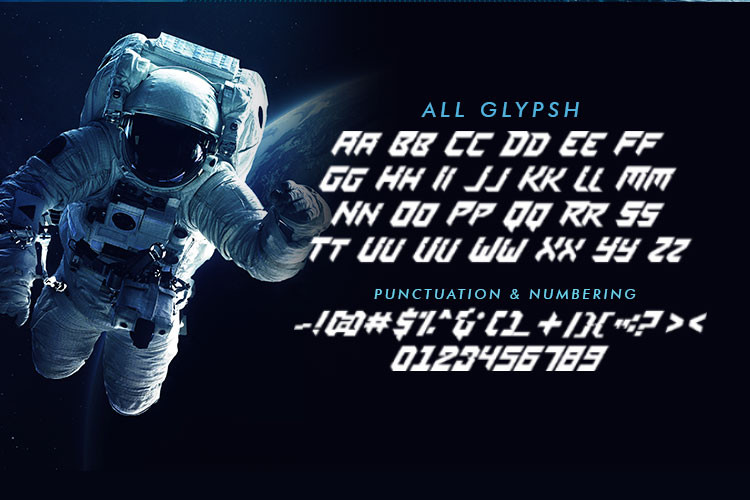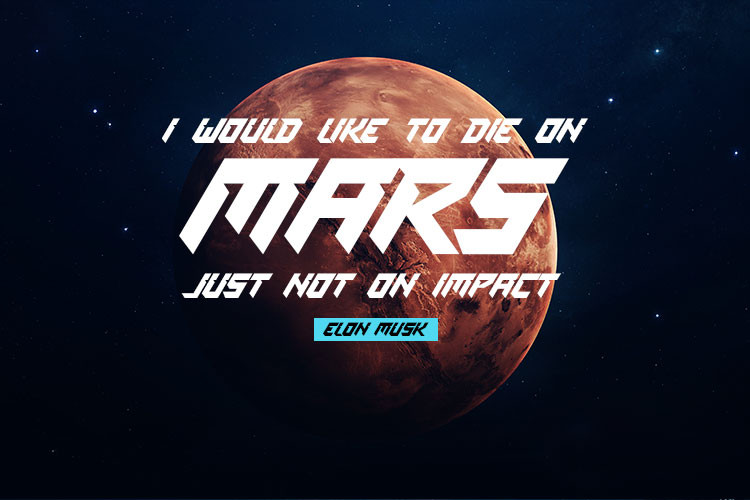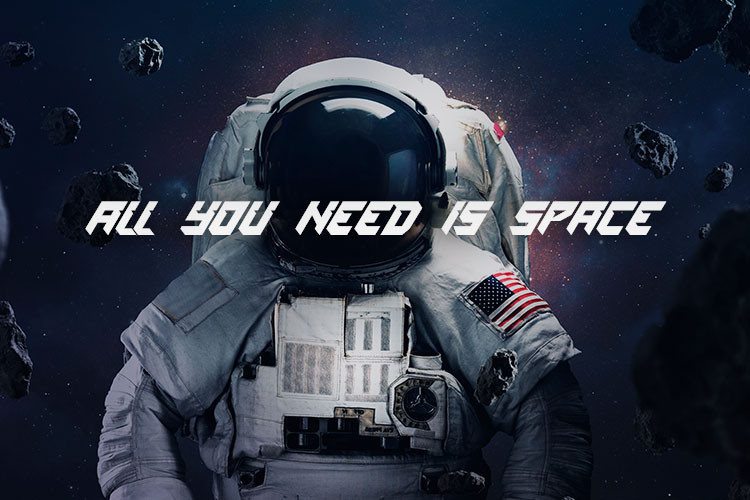
Space Mission Font
Space Mission Display Font
This font is the perfect font for any project with space or gaming design and for your logo or title design with space futuristic themes